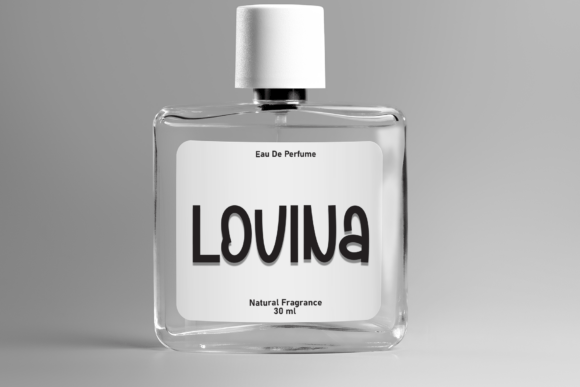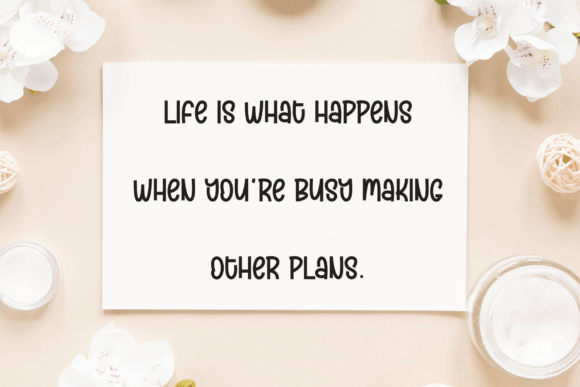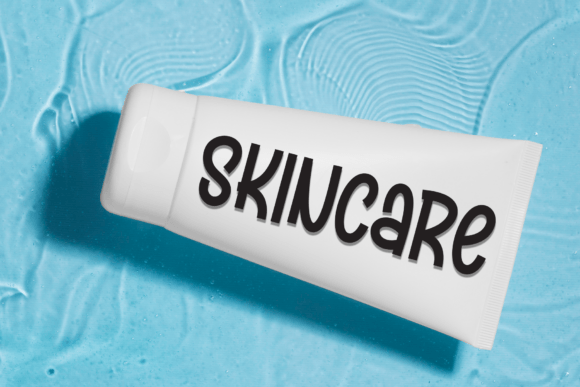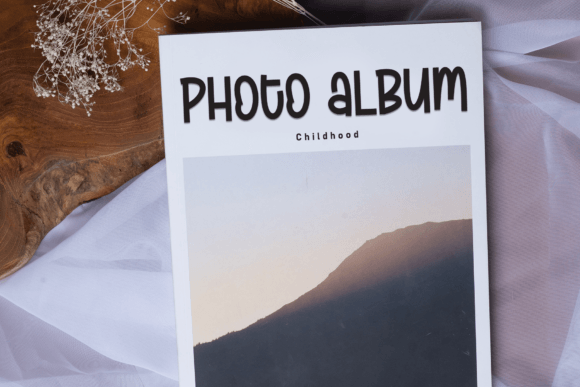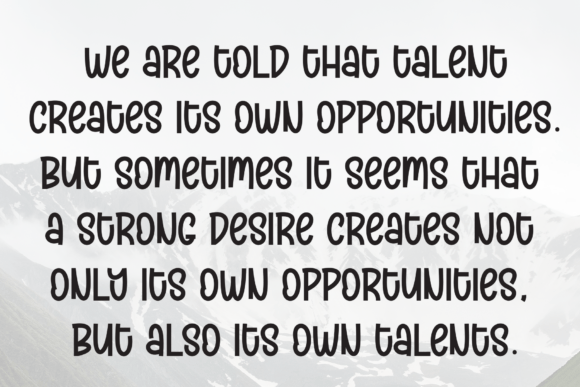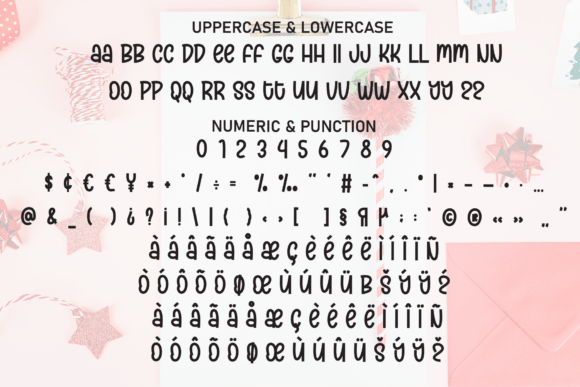
Introduction to Santa Design Font
As a designer, you know the magic of discovering a perfect font for a creative project. It’s like stumbling upon a snowy village on a winter night – all twinkling and full of wonder. For me, that moment came when I found the Santa Design Font. This playful, handwritten font is the epitome of Christmas cheer, and its quirky letters will transport your designs to a festive wonderland.
Whether you’re crafting holiday cards, decorating your home, or designing a seasonal campaign, the Santa Design Font is a high-quality design resource that’s sure to bring a smile to your face. With its transparent background and free download option, you can add this fun font to your design arsenal without breaking the bank.
As a valuable addition to any designer’s toolkit, the Santa Design Font is a must-have for anyone looking to infuse their projects with a jolly, seasonal feel. So why not give it a try and see how this merry font can help you create some holiday magic?
Key Features of Santa Design Font
- High-quality design resource with a transparent background, ideal for creative projects
- Unique and festive design, perfect for holiday-themed projects, Christmas cards, and gift tags
Honest Review: Santa Design Font
As a designer, I’m always on the lookout for high-quality design resources to enhance my creative projects. Recently, I stumbled upon the Santa Design Font, and I’m excited to share my thoughts on it.
- ✨ The font’s unique and playful style makes it perfect for festive and seasonal projects.
- ✨ The high-quality design ensures that the font looks great on various backgrounds and devices.
- ⚠️ The font doesn’t have a transparent background option, which can make it difficult to use on complex backgrounds.
- ⚠️ The font is only available in a few weights and styles, which can limit its versatility.
Overall, I’m impressed with the Santa Design Font, and I think it’s a great addition to any designer’s toolkit. While it may have some limitations, its unique style and high-quality design make it a valuable resource for creative projects.
Santa Design Font: A Comprehensive Guide
Tips for Getting the Most Out of Santa Design Font
Use the Santa Design Font in conjunction with a transparent background to create a high-quality design resource. Experiment with different font sizes and styles to add depth and visual interest to your creative project.
The Santa Design Font is suitable for various design projects, including holiday-themed designs, greeting cards, and party invitations. You can also use the font in social media graphics, blog posts, and website content.